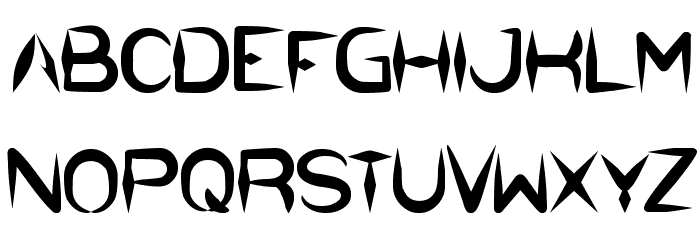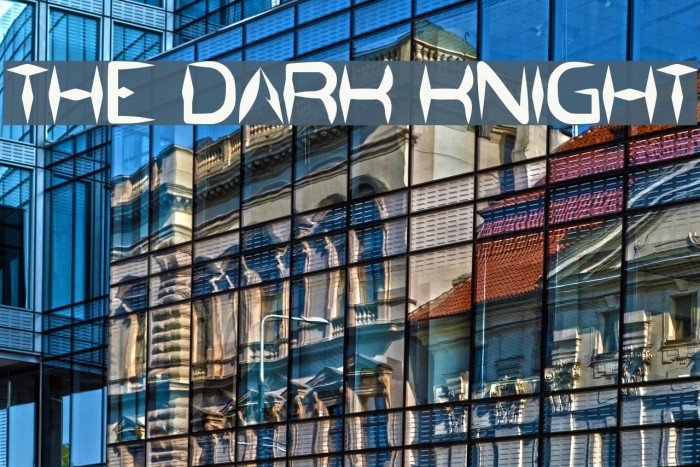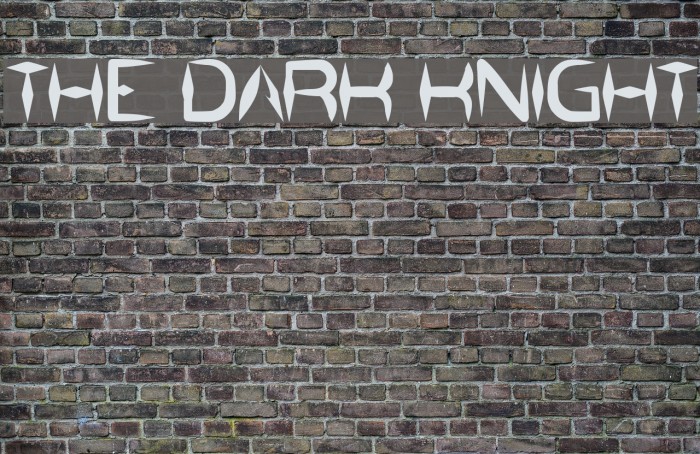
the dark knight Font
This font features a bold and striking design with sharp, angular edges that give it a dynamic and edgy appearance. The characters are crafted with a unique style, incorporating pointed elements that create a sense of movement and intensity. The uppercase letters are particularly distinctive, with each character exhibiting a strong presence. The font's design is reminiscent of a modern, action-oriented aesthetic, making it suitable for projects that require a bold and impactful visual statement. Its high contrast and dramatic style make it ideal for attention-grabbing headlines or titles.
A bold, angular font with sharp edges and a dynamic, modern aesthetic.
- Proposed Projects: Ideal for movie posters, video game covers, branding for action or adventure themes, and any project needing a bold, impactful typeface.